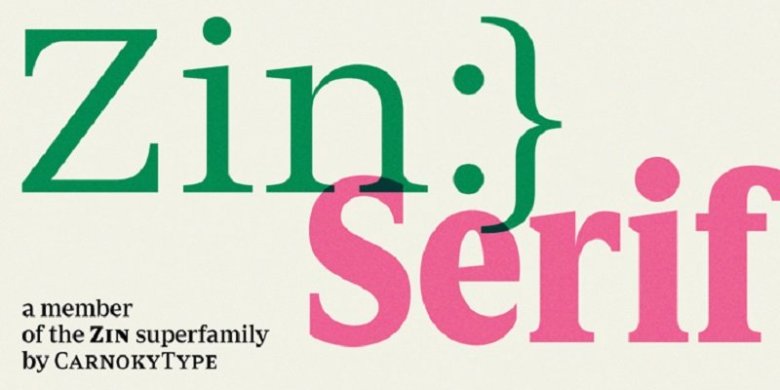
Zin Serif Font Demo
Zin Serif Font is a renaissance old style serif family. Each character was carefully hand-crafted with elegance and legibility in mind. Made from font designer named CarnokyType. It’s a contemporary typeface designed for various situations of typographic usage. Characteristic feature is a large x-height and balance between neutral construction of letters (strictly vertical axis) and dynamic open forms (opened terminals). Another typical feature is a visually narrower connection between stems and strokes.
The complete font family consist of three width proportions (Normal, Condensed and Extended). Every sub-family has 5 weights, ranging from Light to Black with matching Italics.
Zin Serif Font can be effectively used for both text and display typesetting. It can be used especialy in magazine layouts and editorial design, as well in advertising typography, orientation systems, corporate identities and many other situations.